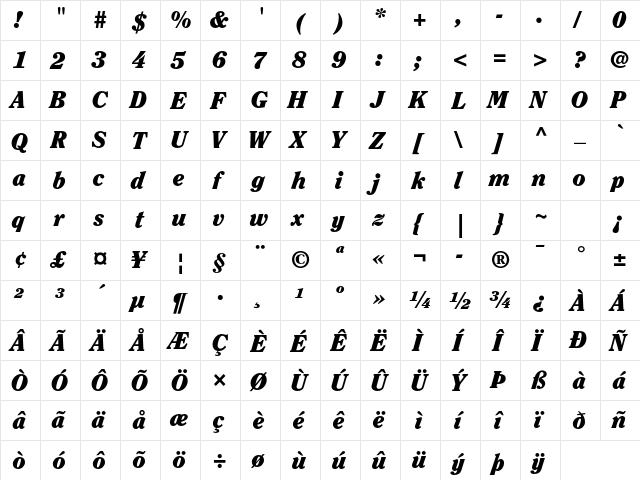
ITC Clearface Std Black Italic Font Preview
ITC Clearface Std Black Italic
| Designer | Vic Caruso |
Design Context for ITC Clearface Std Typeface
ITC Clearface Std is a composed and adaptable typeface that performs quietly and consistently across a wide range of design contexts. Its italic angle brings a sense of urgency and motion to the letterforms.
Pro Tip: Use ITC Clearface Std for emphasis, pull quotes, and subheadings where its slanted energy can add rhythm to the layout.